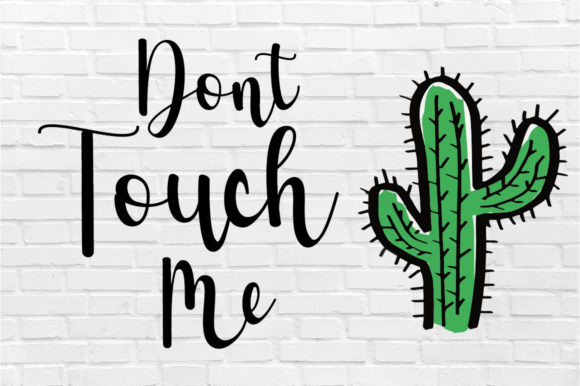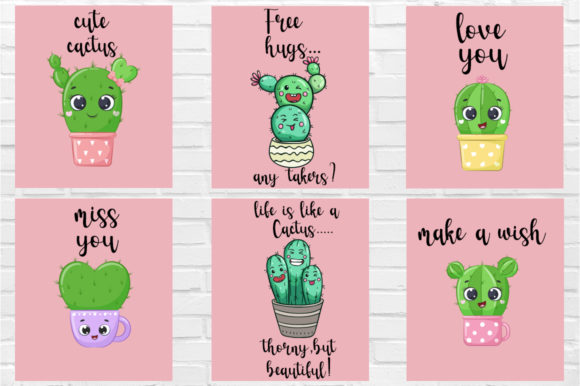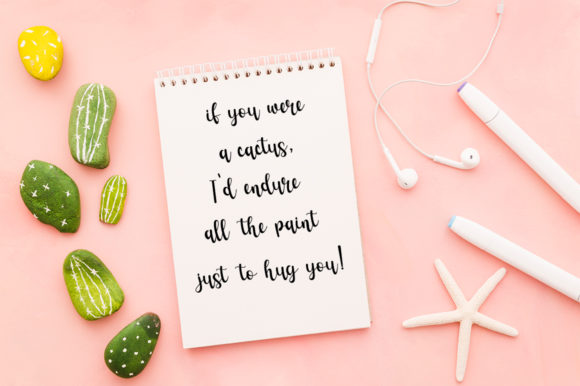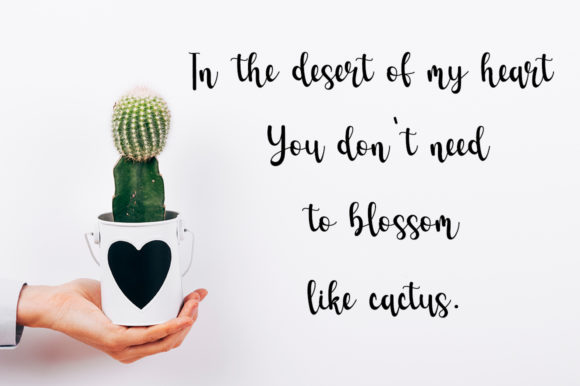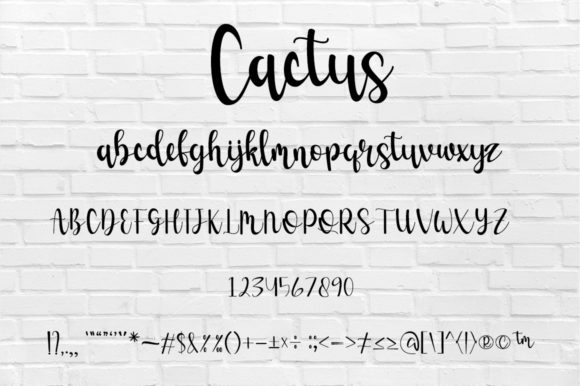
Unleash Your Creativity with the Cactus Font
Have you ever been working on a project, pouring your heart and soul into it, and then – suddenly – it all comes together? The colors, the textures, the typography… everything falls into place, and you’re left with a stunning piece of art. For designers, those moments are what make all the hard work worth it. And, for many of us, the right font can be the missing piece of the puzzle.
Enter the Cactus Font, a beautiful, flowing handwritten font that adds an elegant touch to any project. With its incredibly distinct and timeless style, it’s perfect for designers who want to create spectacular designs that leave a lasting impression. Whether you’re working on a branding project, a website, or a social media campaign, the Cactus Font is a valuable tool to have in your arsenal.
Cactus Font Key Features
- Font Size: 1,000 glyphs, including uppercase and lowercase letters, numbers, and punctuation
- Resolution: Supports high-resolution display, ideal for digital applications and printing
- Unique Characteristics: Distinctive cactus-inspired design, unique letterforms, and ornate details
- Language Support: Multi-language support, including Latin-based languages and some Cyrillic and Greek scripts
- Font Weight: Available in Regular, Bold, and Italic weights, with optional ligatures and swashes
Cactus Font Review
Overall, I was quite excited to dive into the Cactus Font. The designer’s inspiration for a playful, quirky font is something I can definitely get behind. Here are some things that work well:
- ✨ Unique style: The Cactus Font is anything but ordinary. Its eclectic mix of shapes and lines is sure to add some personality to any design.
- ✨ Versatility: The font comes in a range of weights and styles, making it easy to use in a variety of contexts – from headings to body text.
- ✨ Fun and quirky: Let’s be honest, who doesn’t love a font that’s a little bit weird and wonderful?
However, there are a few limitations that I think are worth mentioning:
- ⚠️ Limited legibility: In some instances, the Cactus Font can be a bit hard to read, especially at smaller sizes. This might make it less suitable for long blocks of text.
- ⚠️ Limited language support: The font seems to be optimized for Latin-based languages, so it might not be the best choice for designs that require support for other languages.
Overall, I think the Cactus Font is a great choice for designers who are looking to add a bit of whimsy and personality to their work. Just be mindful of its limitations, and use it in contexts where its unique style will shine.
Cactus Font Practical Application Guide
The Cactus Font is perfect for:
- Designing invitations and party materials.
- Creating logos and branding materials.
- Adding a touch of whimsy to social media graphics.
Tips for Getting the Most Out of Cactus Font
To get the most out of Cactus Font, try:
- Pairing it with bold, bright colors.
- Using it in combination with other playful fonts.
- Experimenting with different font sizes and styles.
Alternatives to Cactus Font
Great Vibes is a modern, handwritten font that can be used for titles and headings. It has a playful and energetic feel to it, making it perfect for creative and casual projects. Great Vibes is more elegant and refined compared to Cactus Font, which has a more rustic and vintage vibe.
Alex Brush is a beautiful, handwritten font that can be used for titles, headings, and body text. It has a soft and elegant feel to it, making it perfect for high-end and luxury projects. Alex Brush is more sophisticated and polished compared to Cactus Font, which has a more casual and laid-back vibe.
Ostrich Sans is a modern, sans-serif font that can be used for body text and titles. It has a clean and minimalist feel to it, making it perfect for corporate and professional projects. Ostrich Sans is more straightforward and simple compared to Cactus Font, which has a more ornate and decorative feel.
Carolyna Pro is a modern, script font that can be used for titles and headings. It has a elegant and sophisticated feel to it, making it perfect for high-end and luxury projects. Carolyna Pro is more refined and polished compared to Cactus Font, which has a more casual and laid-back vibe.